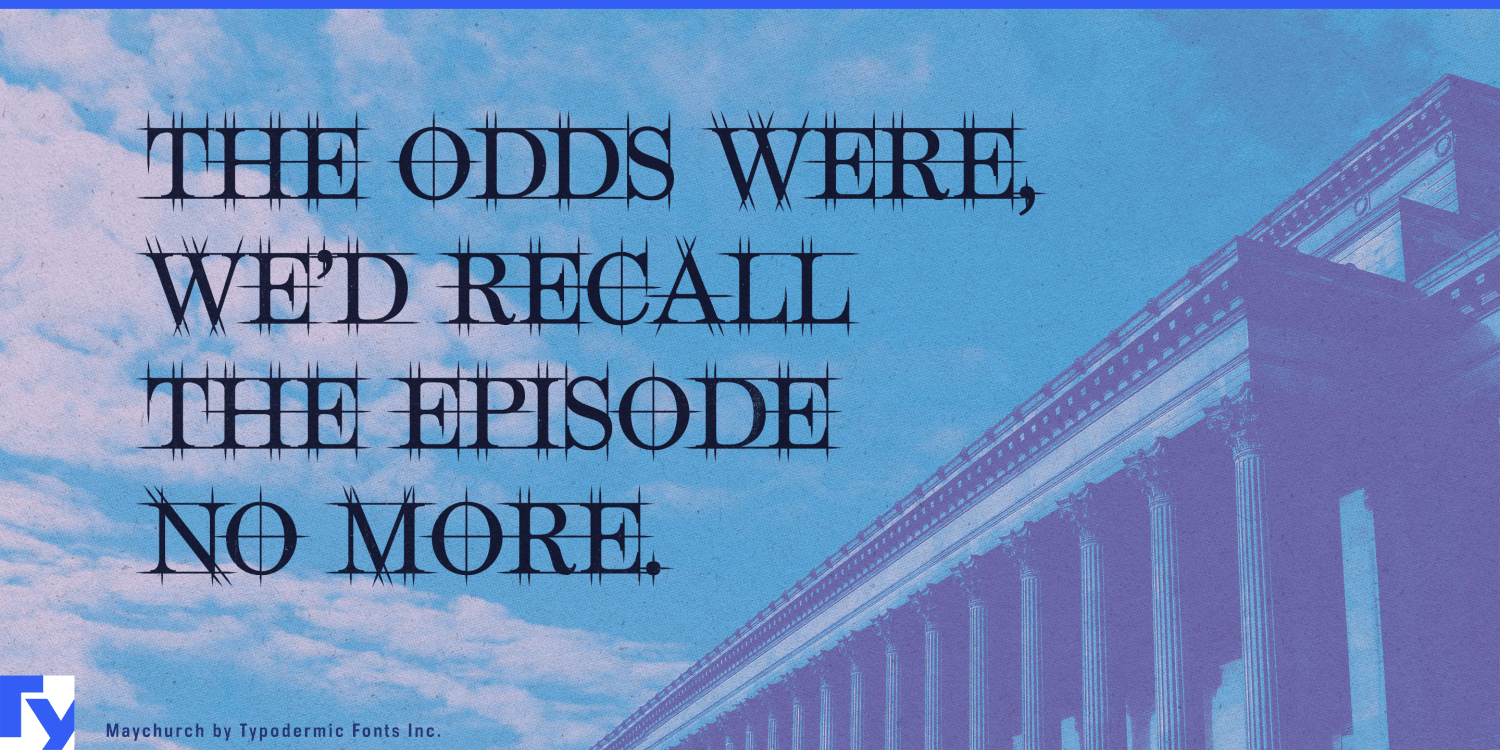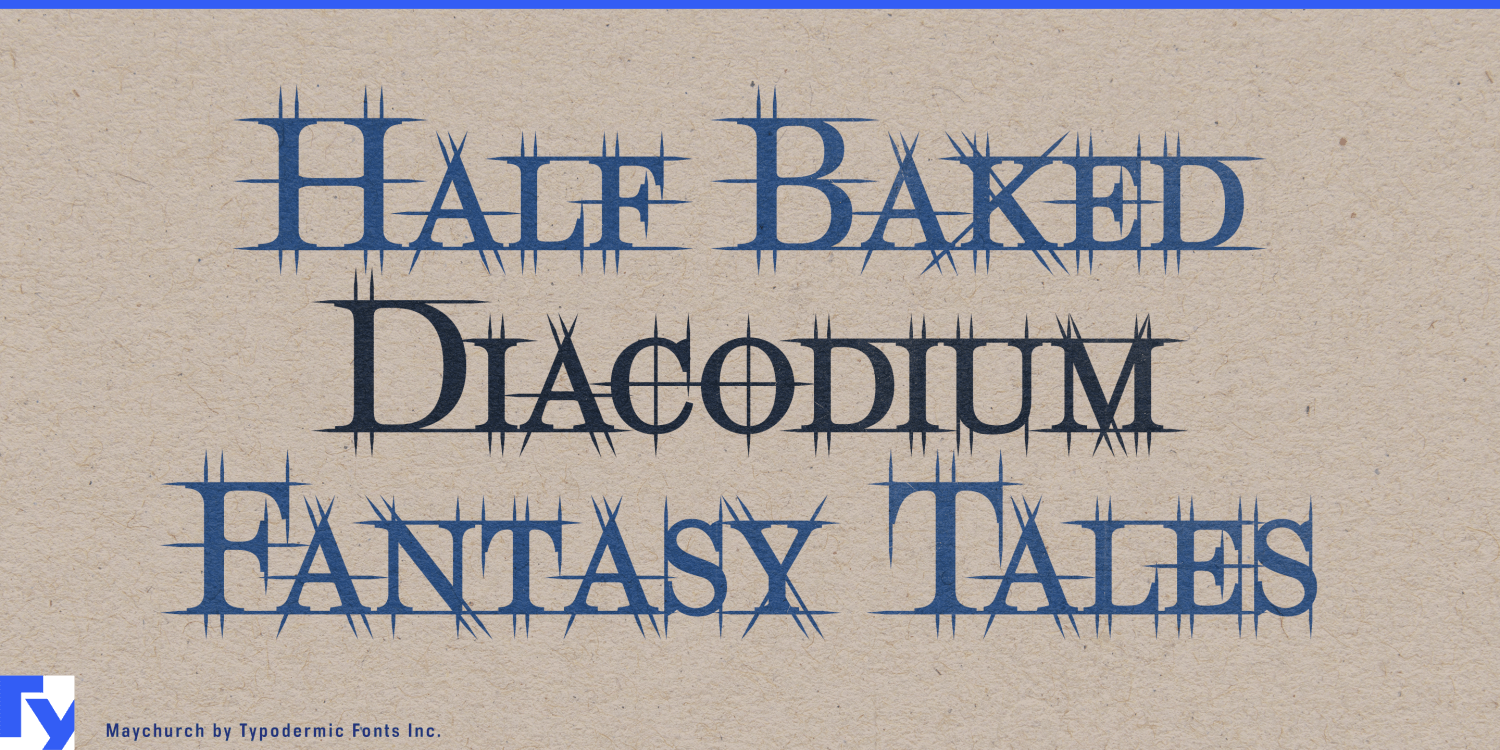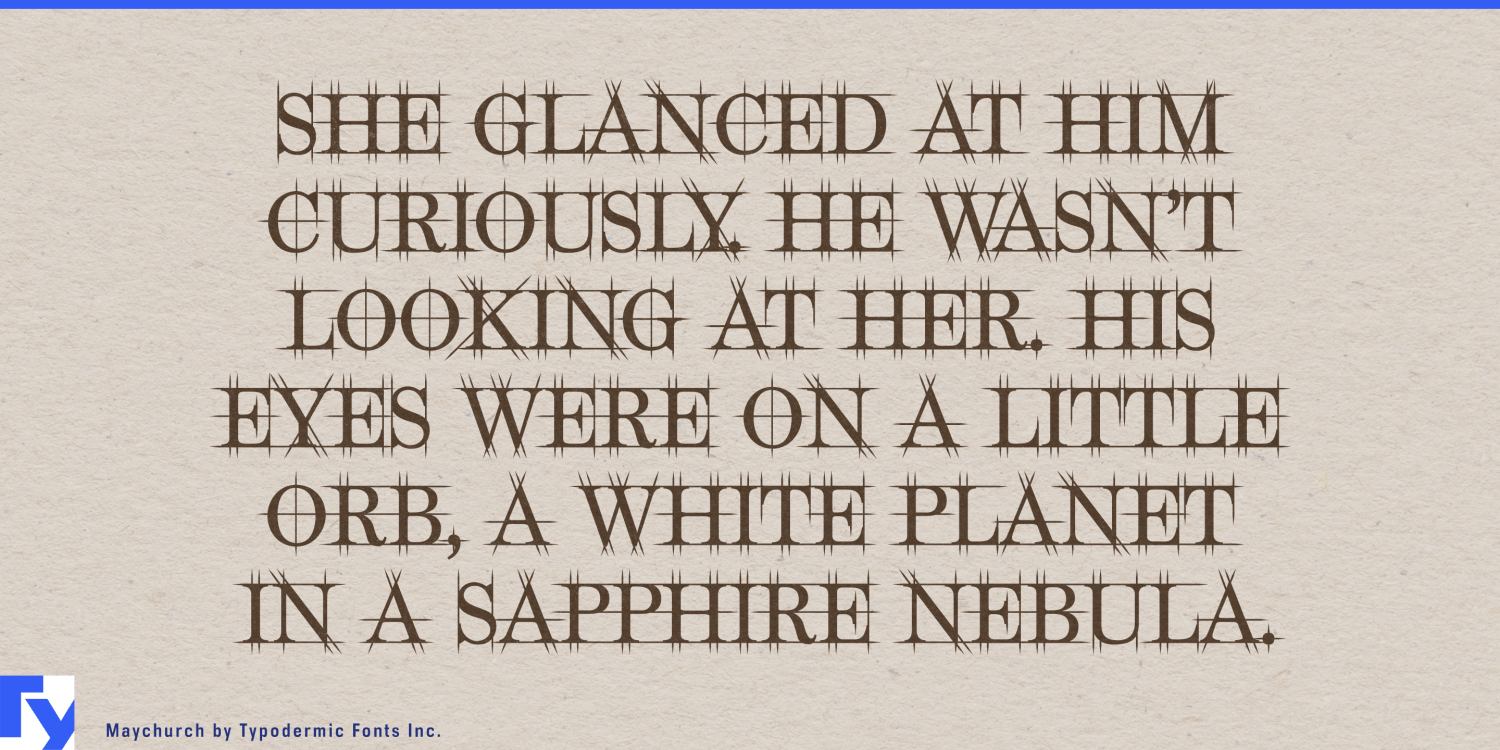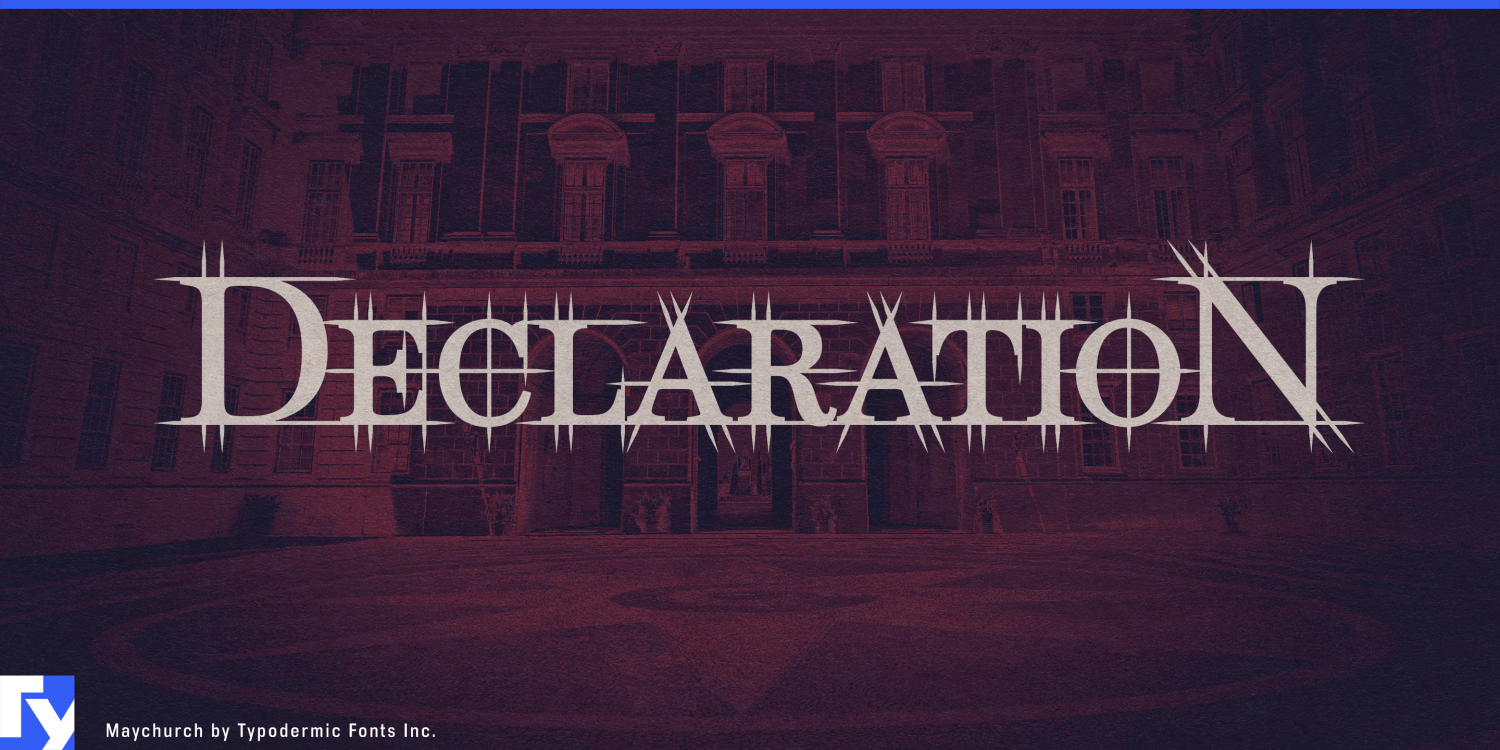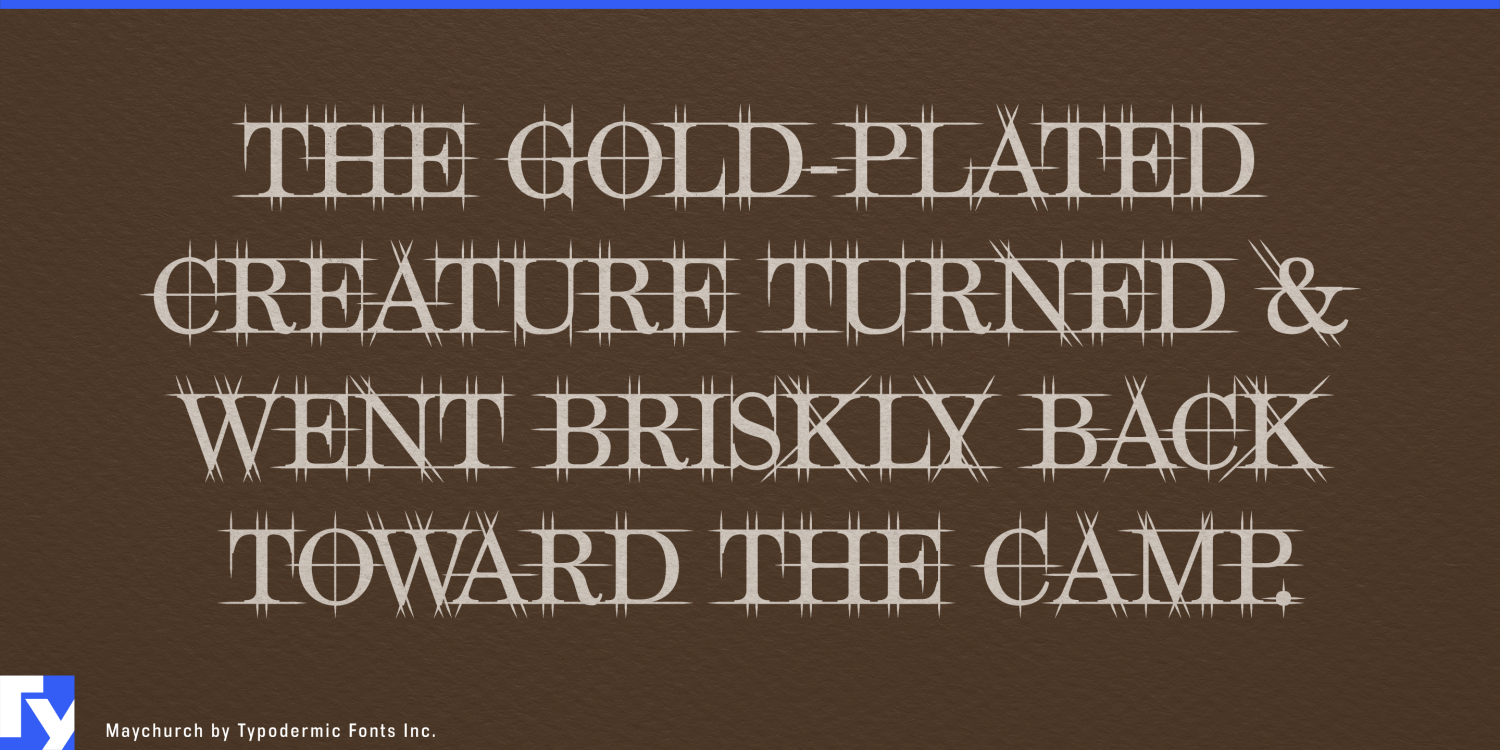
About Maychurch
Introducing Maychurch, a typeface that transforms text into typographic monuments. Inspired by the grand architectural styles of Georgian, Neoclassical, Federalist, and Victorian eras, Maychurch embodies the precision of master drafters and the vision…